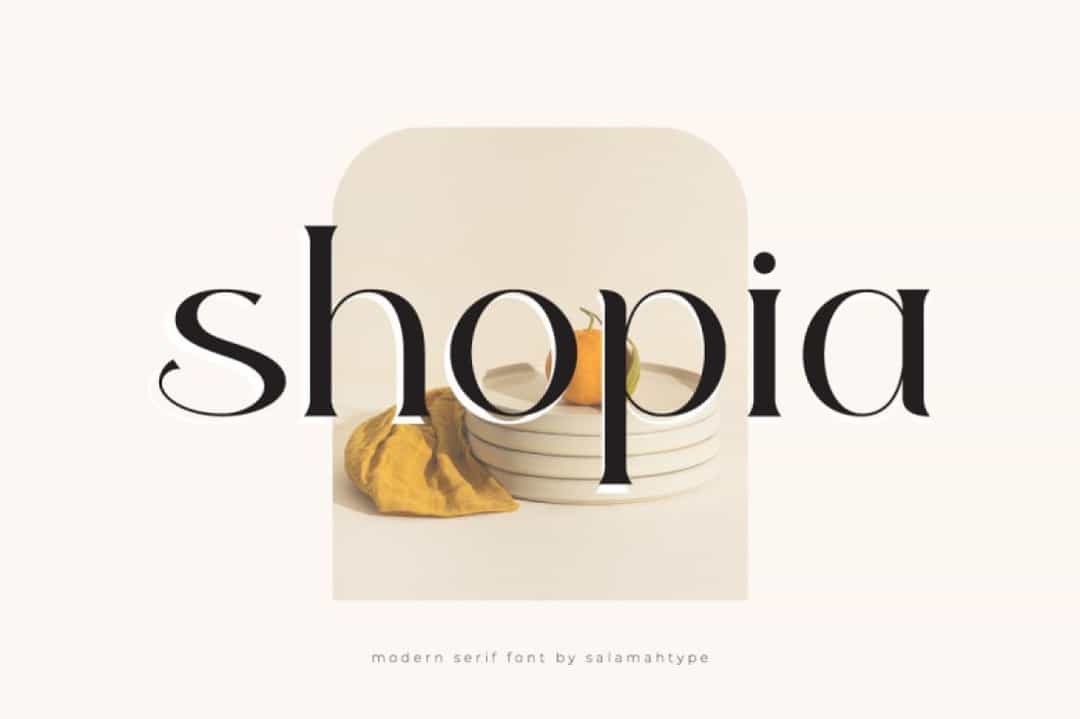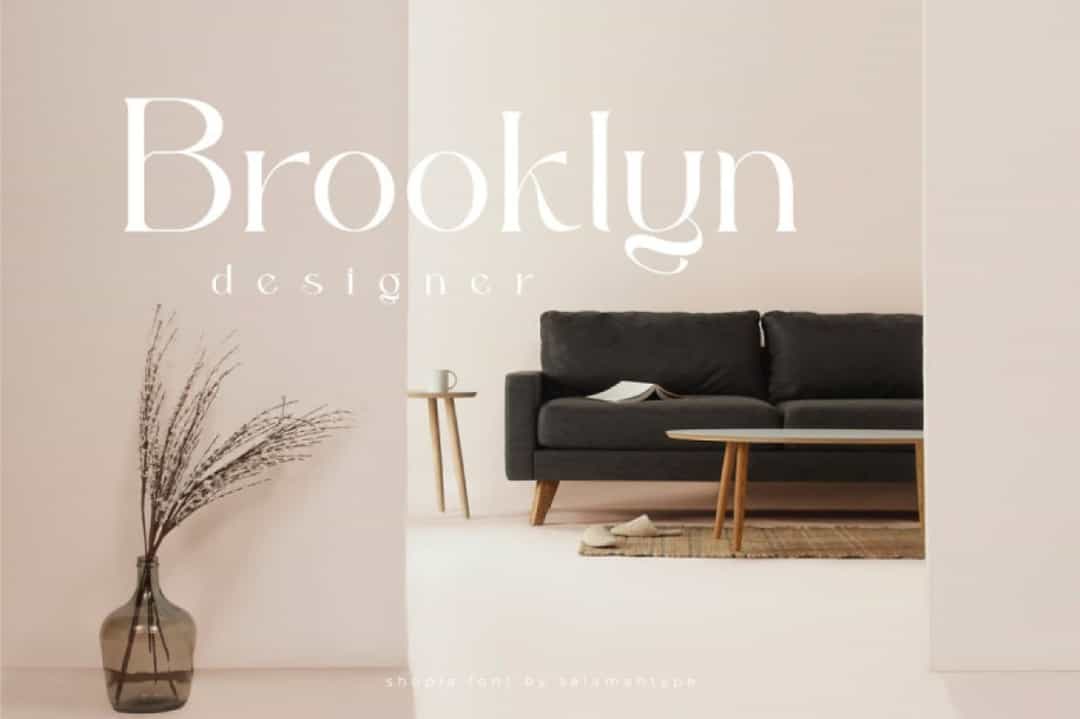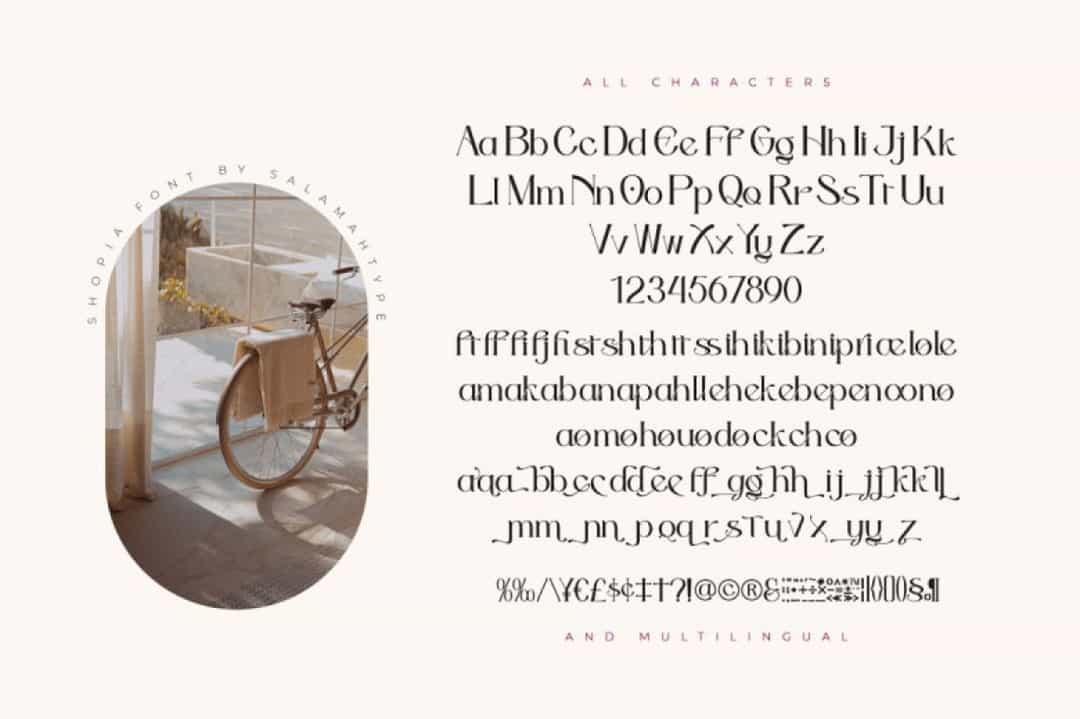
Discover Shopia Font, part of the Serif collection—a versatile and unique font perfect for adding a personal touch to your projects. Download it for free and enjoy crafting designs with style, from invitations to social media posts. This font is available exclusively for personal use, giving you the freedom to create without limits. Unlock your creativity with Shopia Font today!
Shopia is a modern serif font with elegant style this font is perfect for branding projects, logos, social media posts, advertisements, product packaging, wedding invitations, product designs, label, photography, watermark, stationery and so much more.